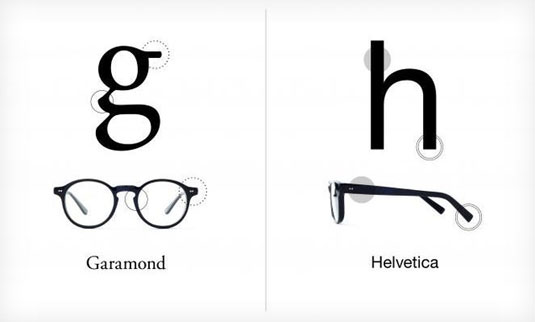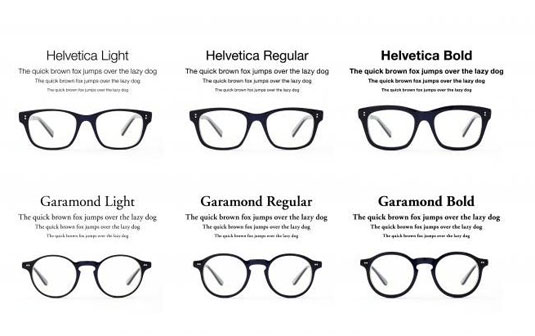
Wear your favourite font on your face
Japanese company Type wants to put your favourite typography on your face in the form of glasses.
If you're a typographer or simply a fan of fonts, you'll no doubt have a favourite typeface or two. But aside from T-shirts there's never really been a way to show the word your passion for typography - until now.
Japanese company TYPE love typography so much that they've decided to incorporate two of the world's favourite fonts into their latest product design. The two lines of spectacles take inspiration from Helvetica and Garamond, in three different weights.
Each line has three versions of the spectacles - light, regular, and bold - that dictates the thickness of the frames. If you're impressed, you'll be pleased to know you'll be able to purchase the glasses from January 30 for ¥24,150 (about $231/£140).